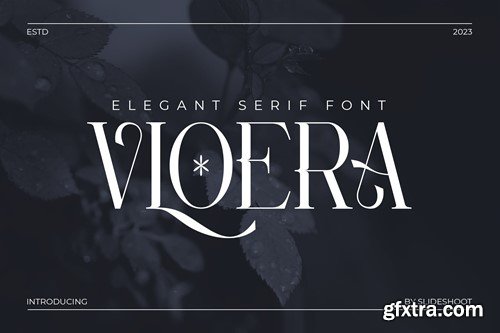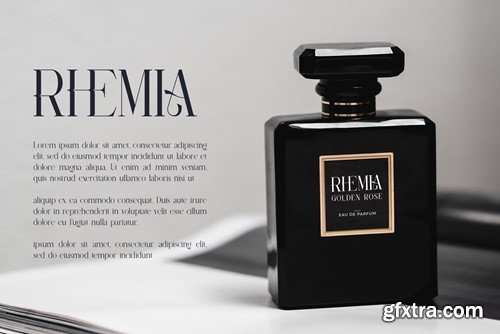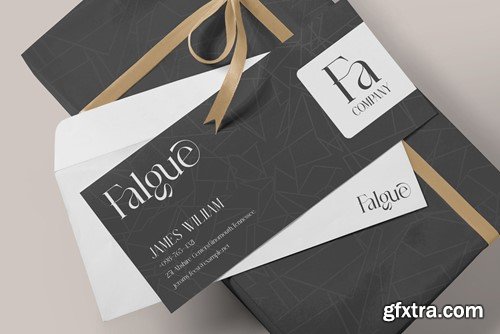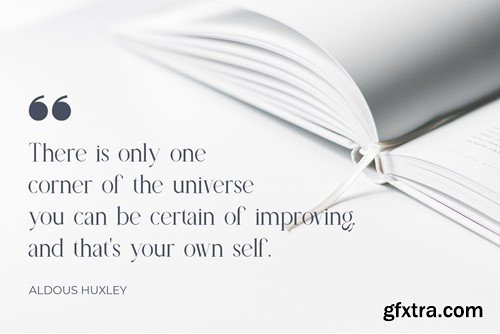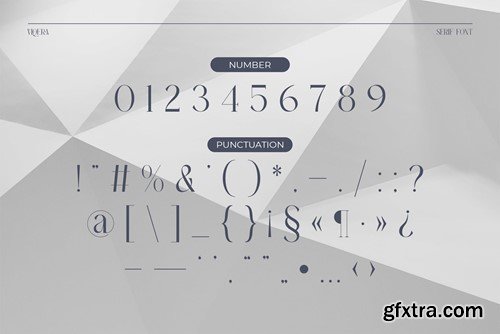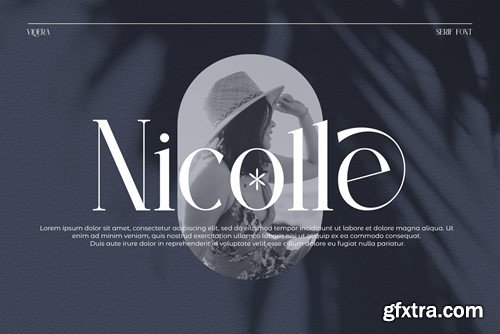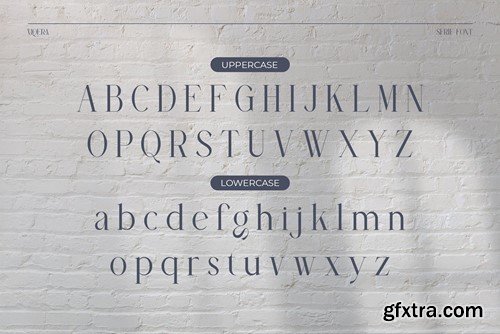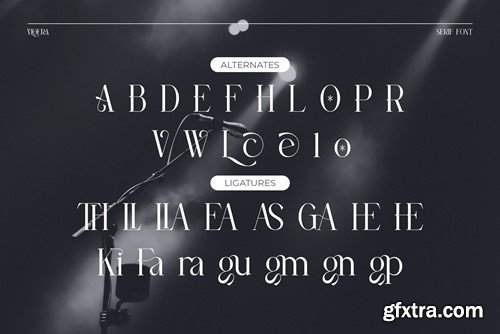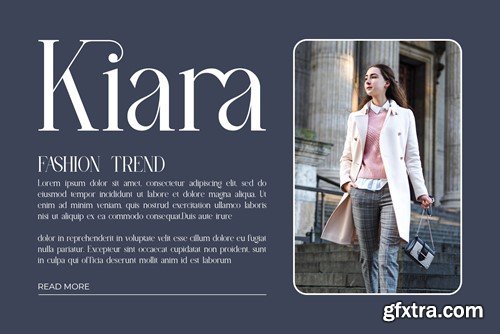
Vloera Elegant Serif Font JL5QHCL
Vloera Elegant Serif Font
Vloera Serif is a balanced, smooth, elegant and stylish serif font. He has a beautiful character. It fits perfectly with invitation card designs, company logos, movie titles, movie names, business cards, book titles, brand names and various other designs. Vloera Serif is a subtle serif font that exudes sophistication and elegance. Its stylish alternations and ligatures make this font the perfect partner for any project.
• Ligature
• Uppercase and lowercase